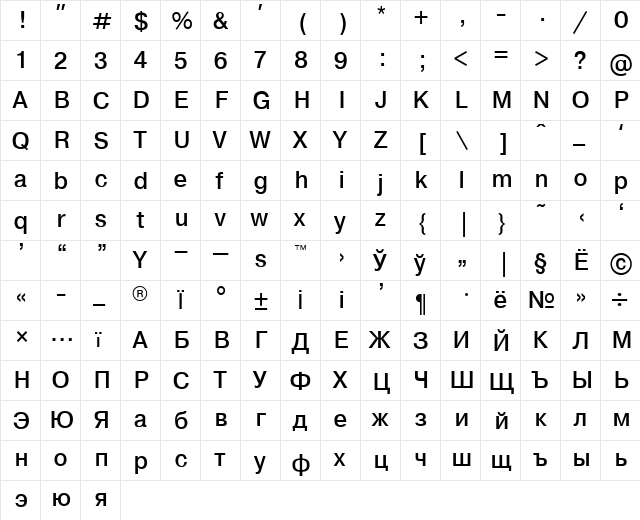
Enciclopaedia Plain
Design Context for Enciclopaedia Typeface
Enciclopaedia is a composed and adaptable typeface that performs quietly and consistently across a wide range of design contexts.